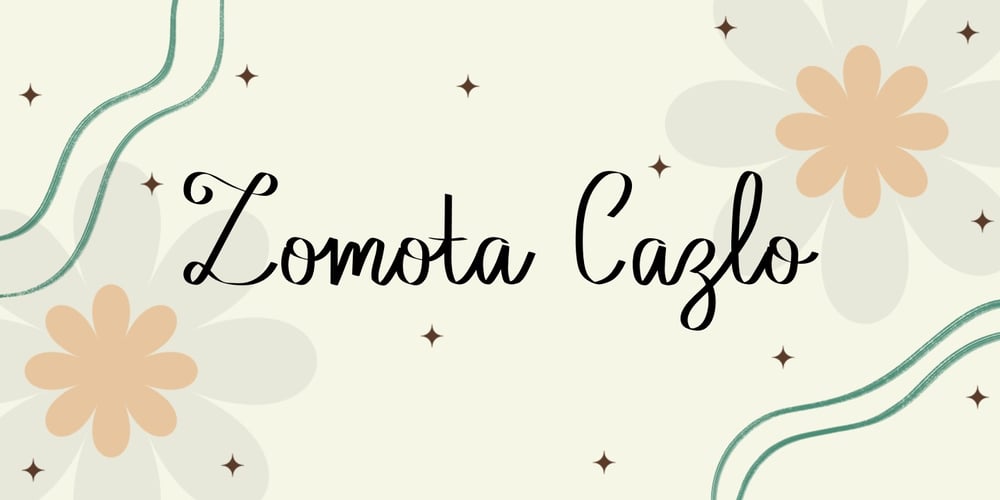
Zomota Cazlo Font Family was designed by Khair Unnas and published by Khaiuns. Zomota Cazlo contains 1 styles and family package options. Introducing Zomota Cazlo, a handwritten font that beautifully blends the elegance of calligraphy with a playful, sweet vibe. Inspired by the brush strokes of Arabic and Chinese calligraphy, its thin, flowing lines create a unique and charming look. This font is designed to give your projects a cute and natural feel, making it perfect for invitations, logos, and branding.With 50 carefully crafted ligatures, Zomota Cazlo captures a handwritten, authentic feel that adds a personal touch to any design. It’s an ideal choice for those seeking a stylish yet approachable aesthetic.I hope you have fun using Zomota Cazlo.